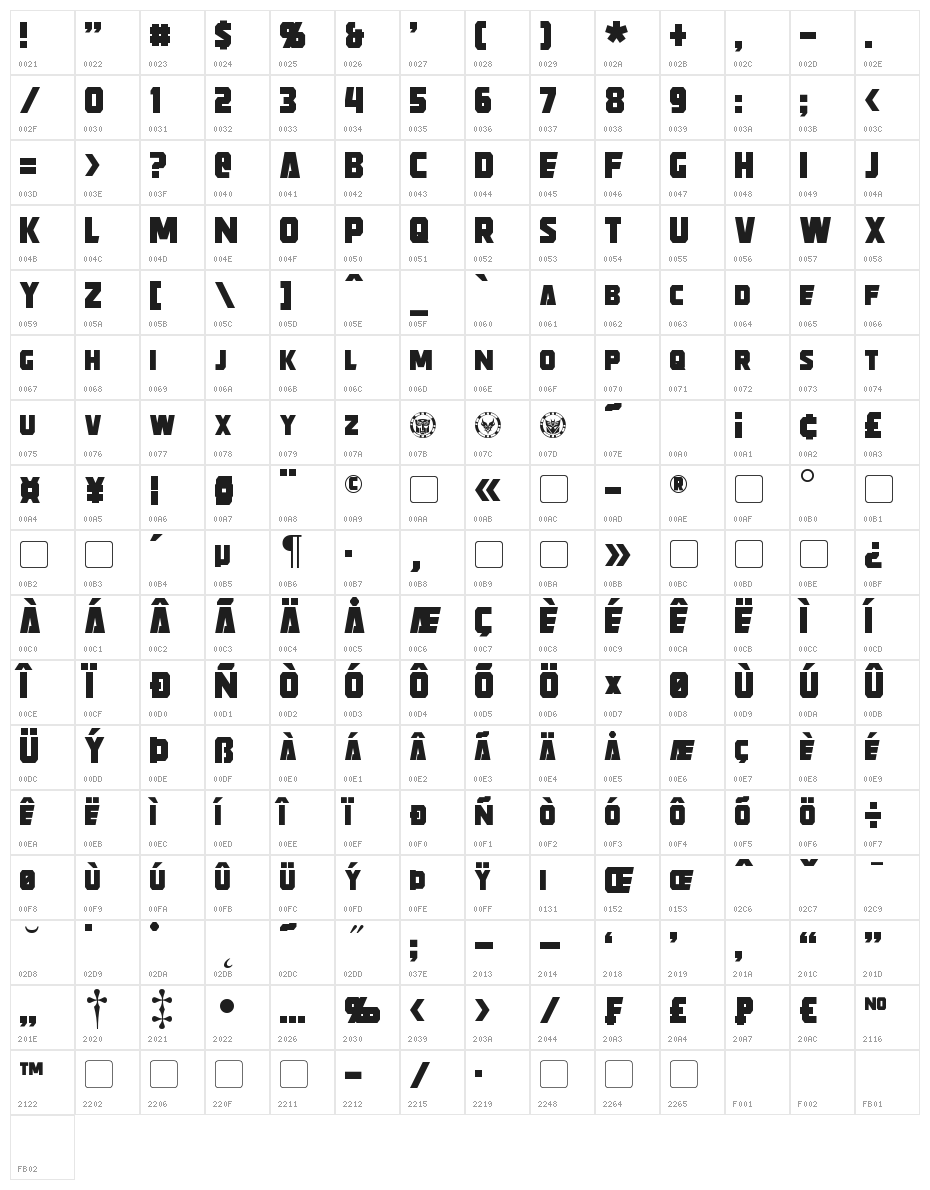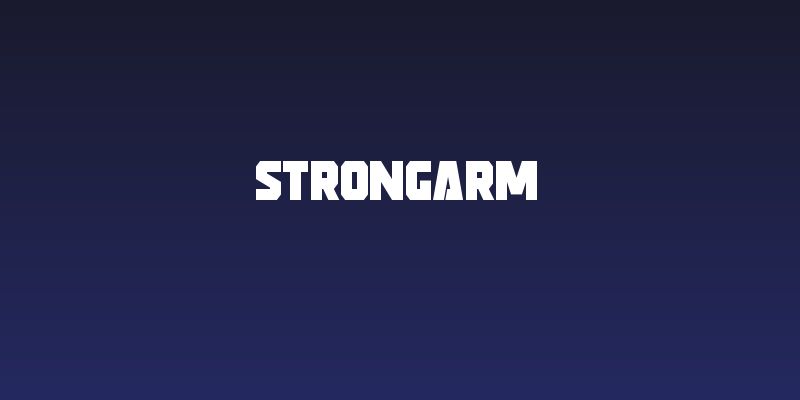
Strongarm Font
Strongarm Description
This font features a bold and robust design with strong geometric shapes and sharp angles. The characters are blocky and wide, giving a sense of power and impact. The uppercase letters are particularly striking, with a uniform height and width that create a cohesive look. The numbers and special characters maintain the same boldness, ensuring consistency across all elements. This font is ideal for making a statement, with its heavy weight and strong presence.